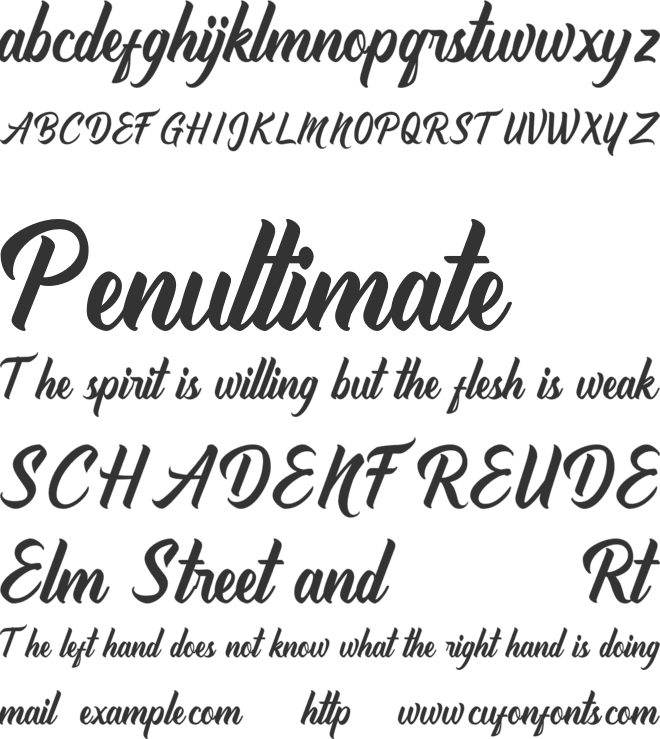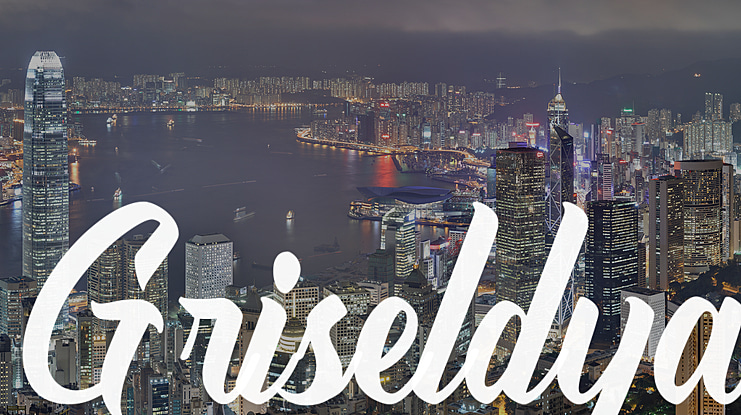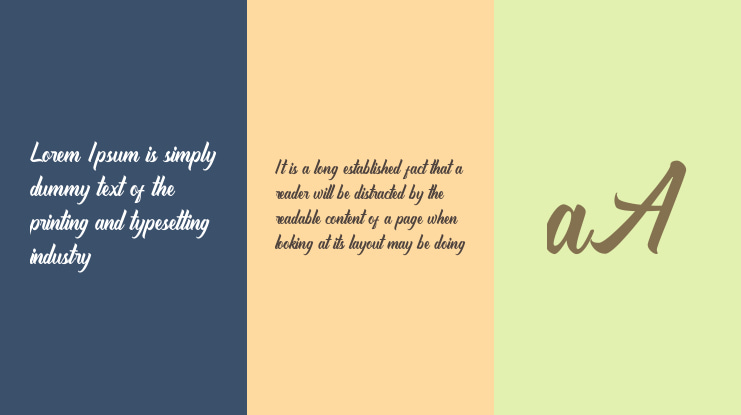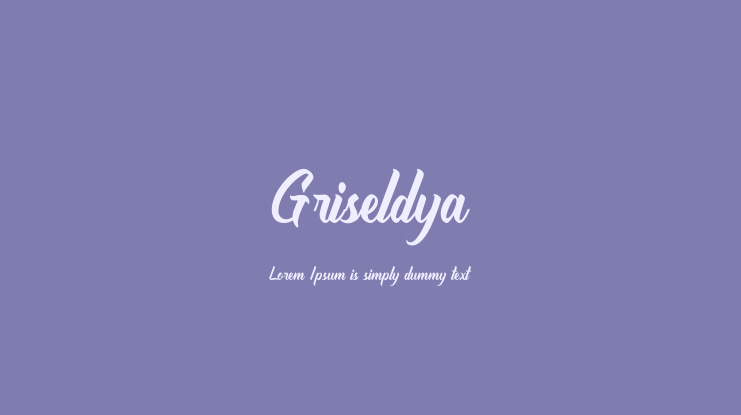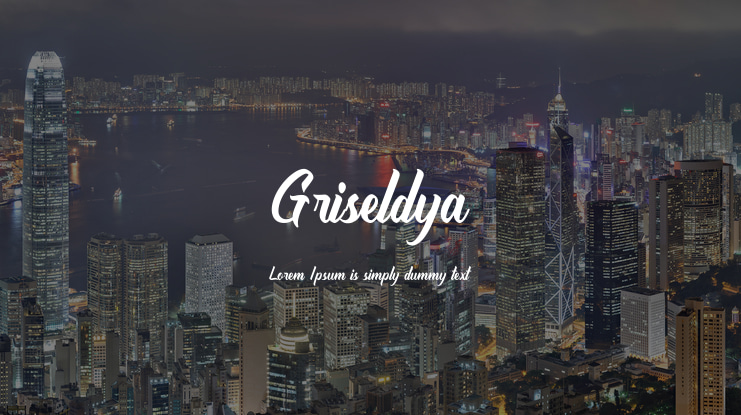
Griseldya Font
Hi .... Let me introduce Griseldya, this font was created to help you design your own brand or your client, and you can also use it to design all graphic things like badges, signs, packaging, headlines, T-shirts / clothing, posters, etc.
Griseldya is designed for personal characters such as strong, confident, dynamic, easy to read, etc.
Features in fonts -Stylistic Set (SS01, SS02, SS03, SS04) -Lowercase & Upercase -Function -Contextual Alternative (r, s, x, and z)